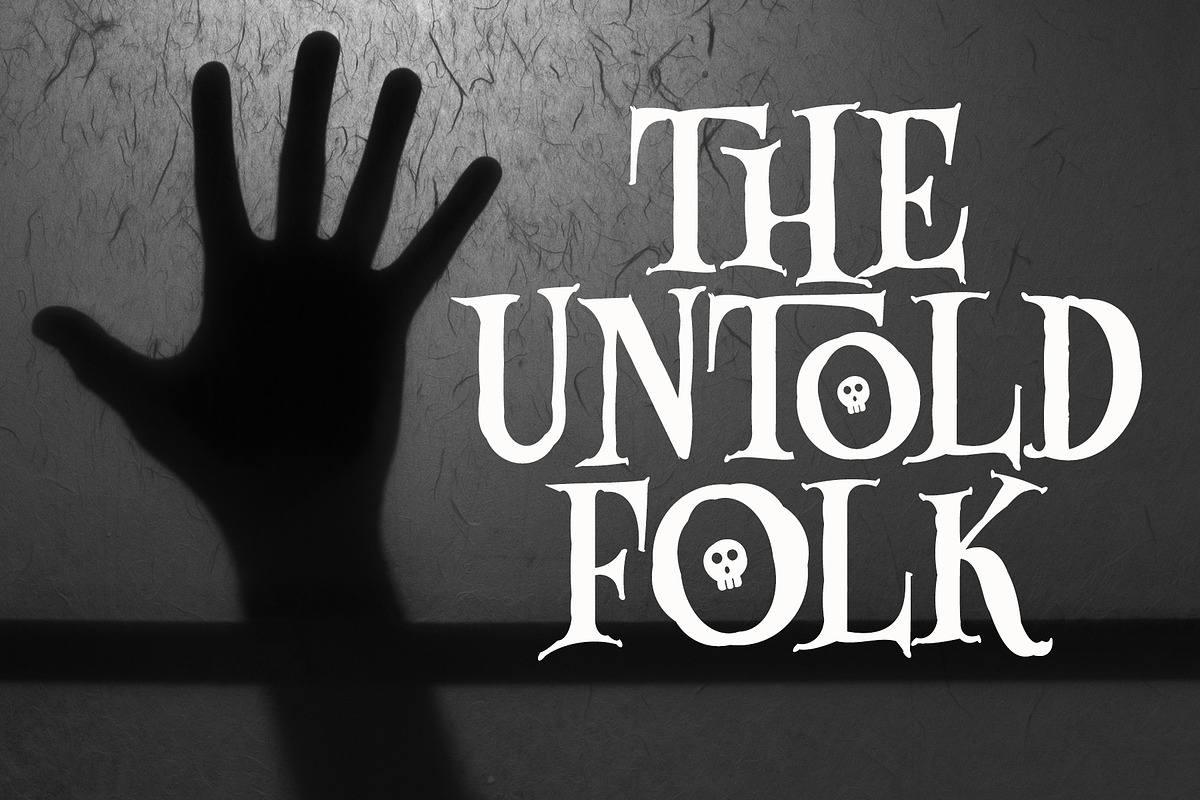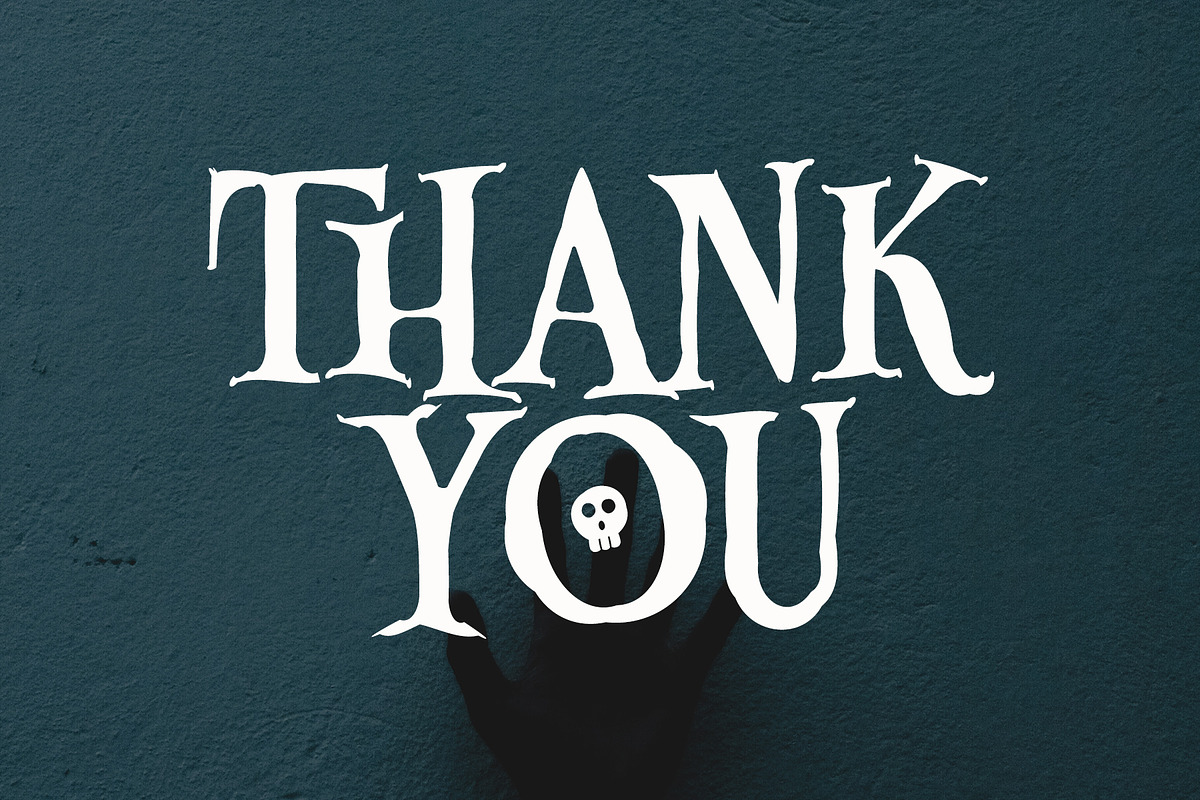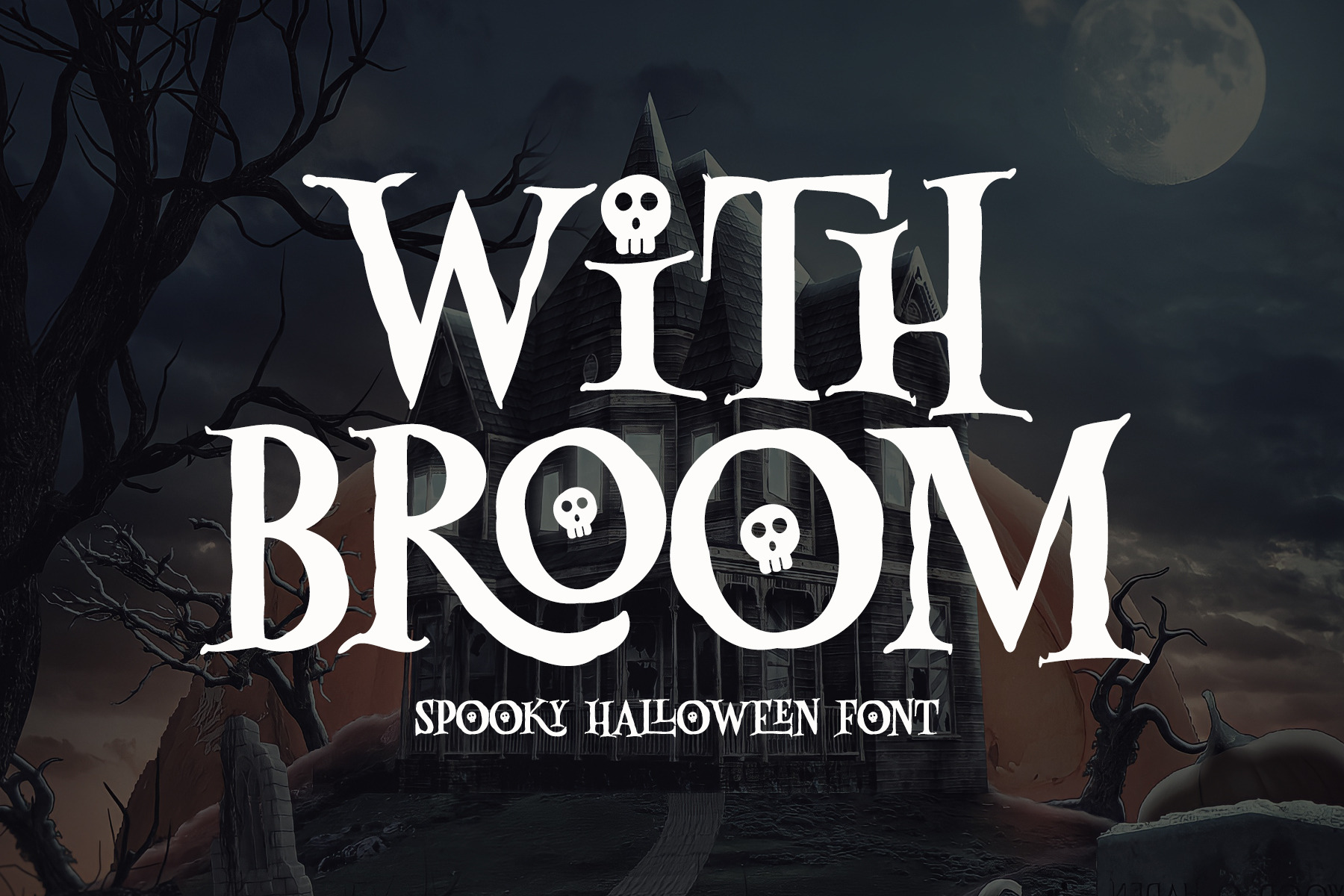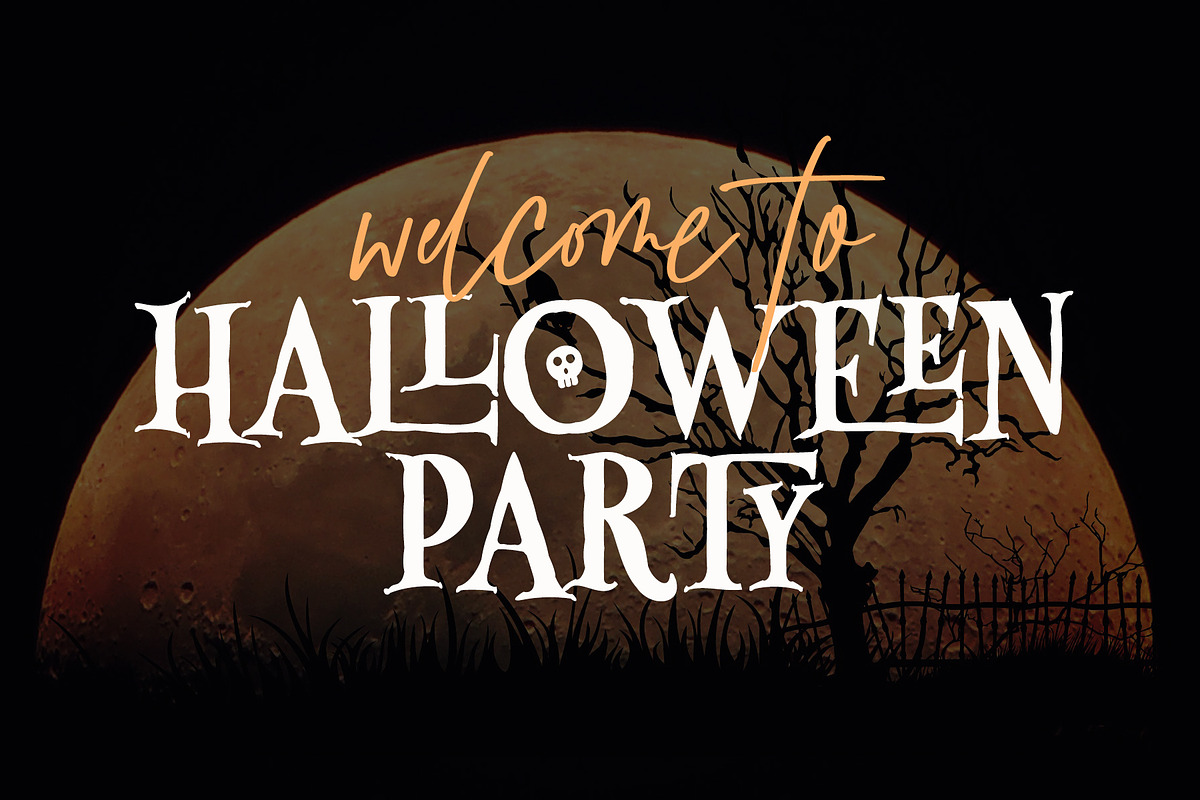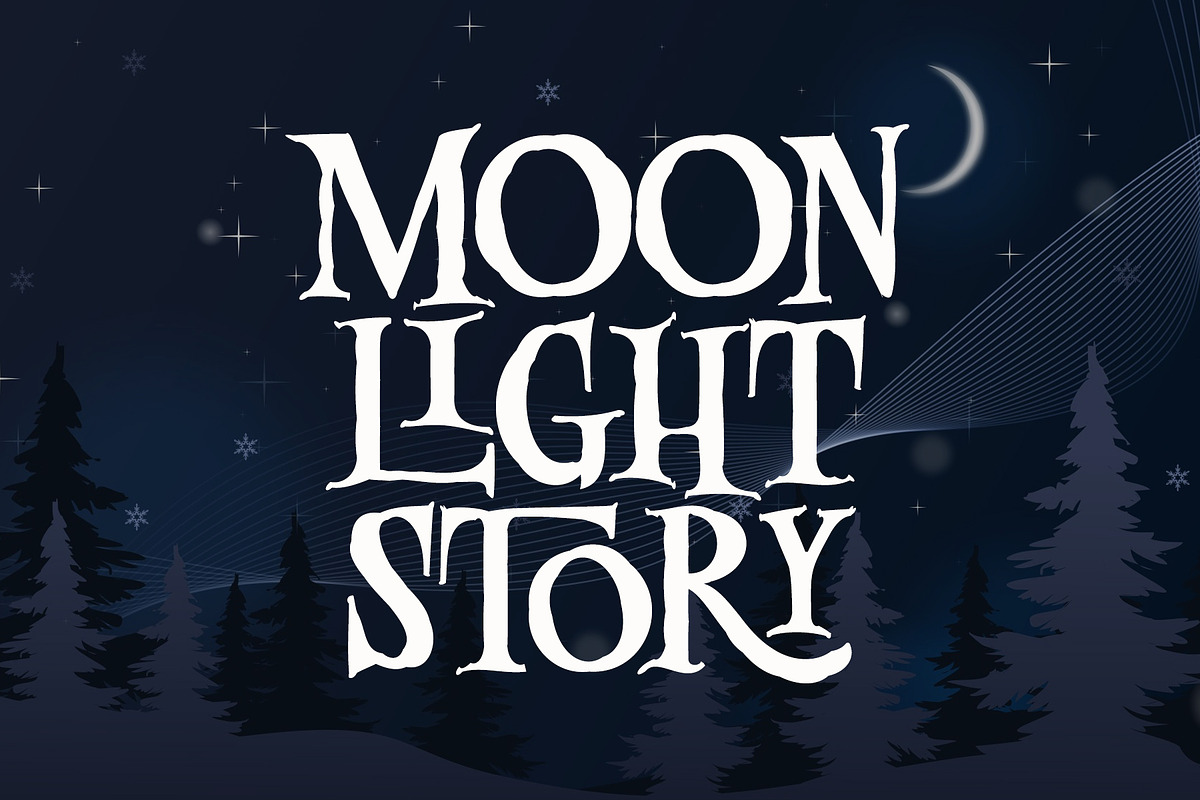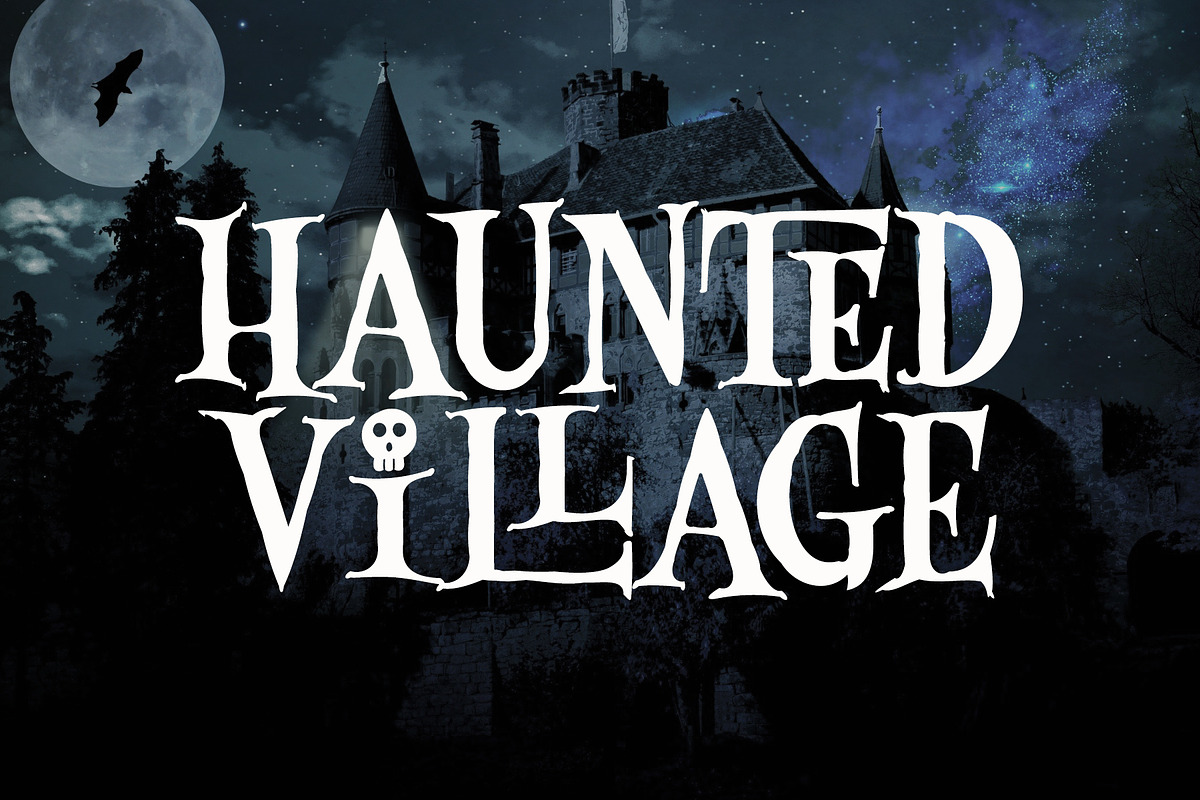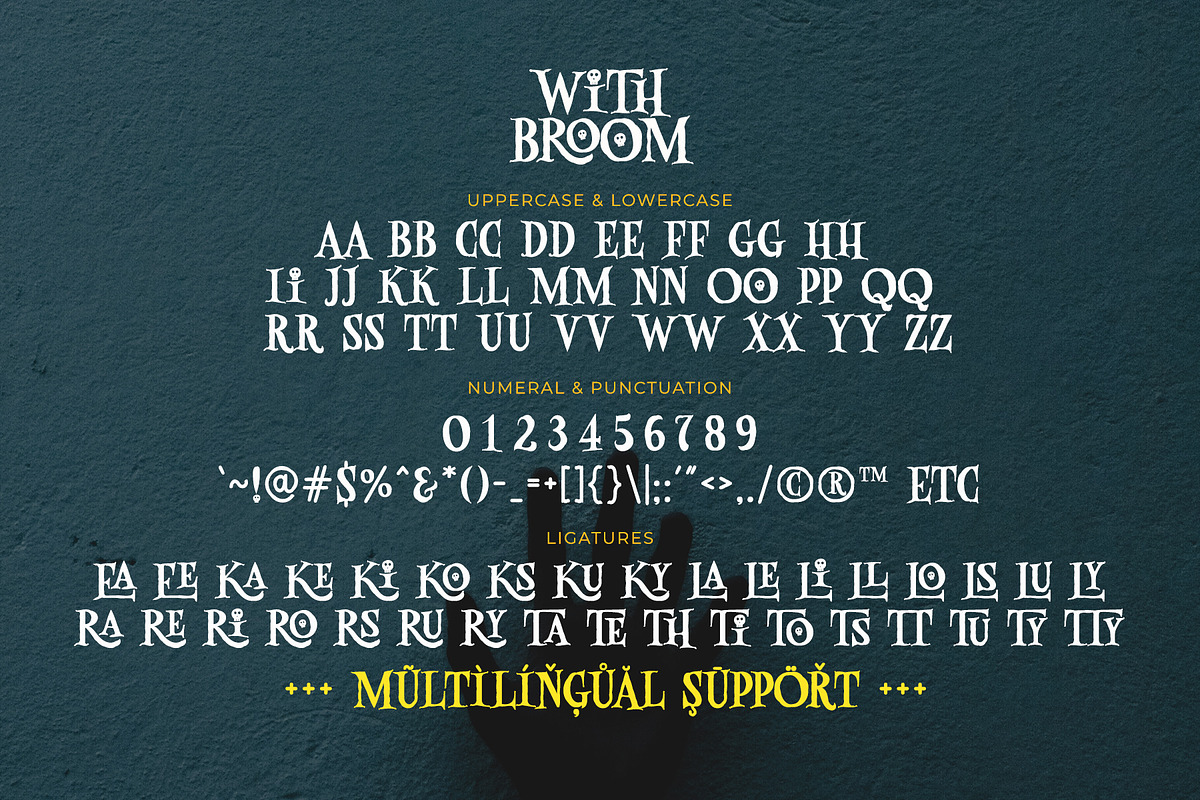
With Broom - Spooky Halloween Font
With Broom is all caps serif font with spooky and scary vibes. This is special font for Halloween theme.
This font has some ligatures to give more options in designing.
With Broom is perfect serif font for design that needs spooky and retro vibes, such as Halloween, t-shirt, stickers, crafting, sublimation, and many more.
- All Caps (with some ligatures)
- Most Multilingual Accent